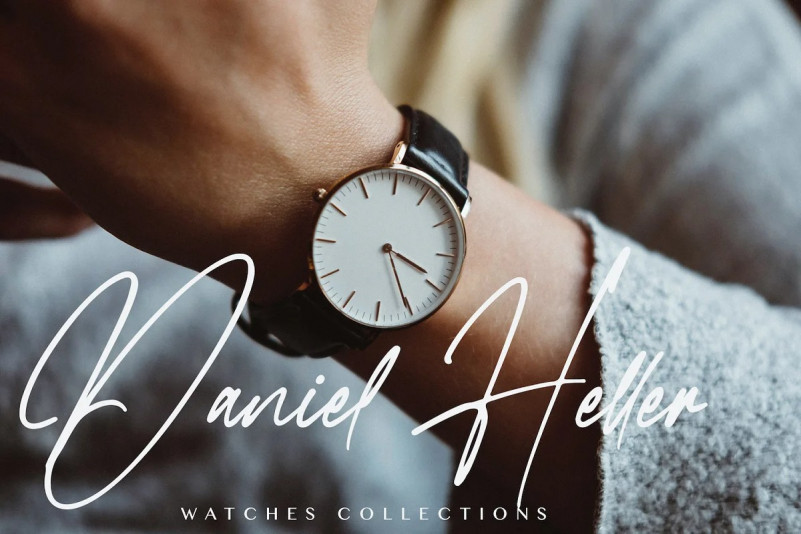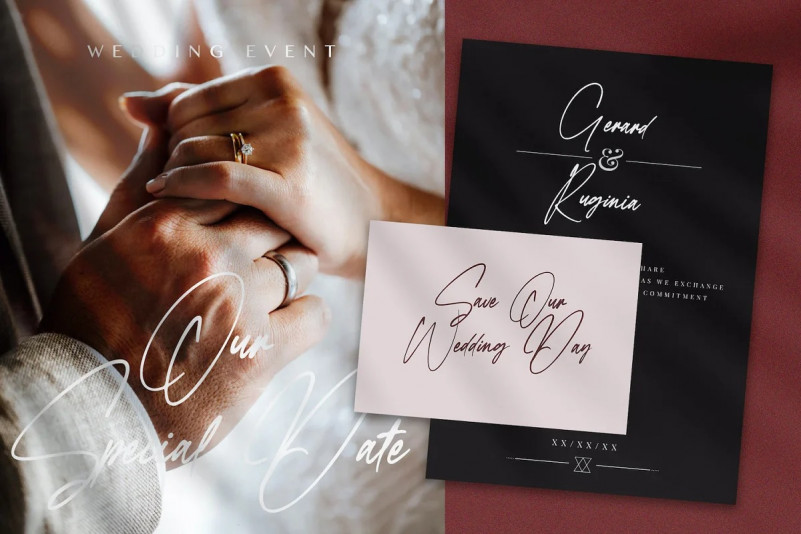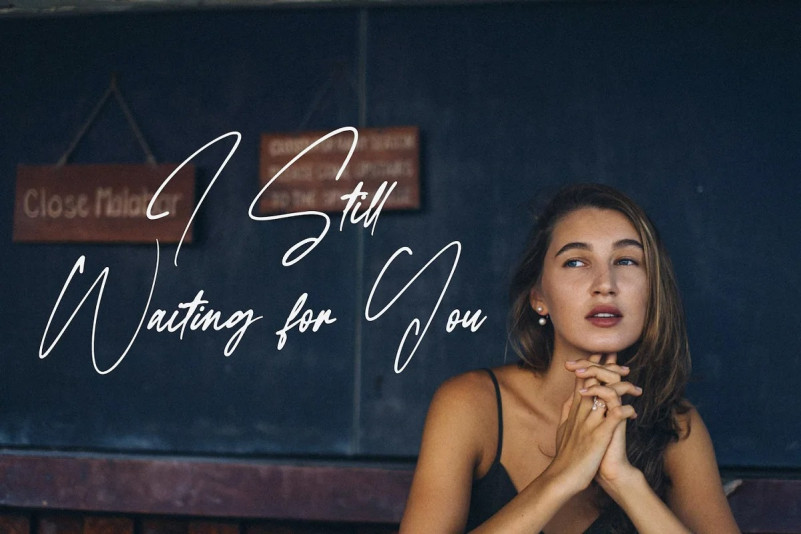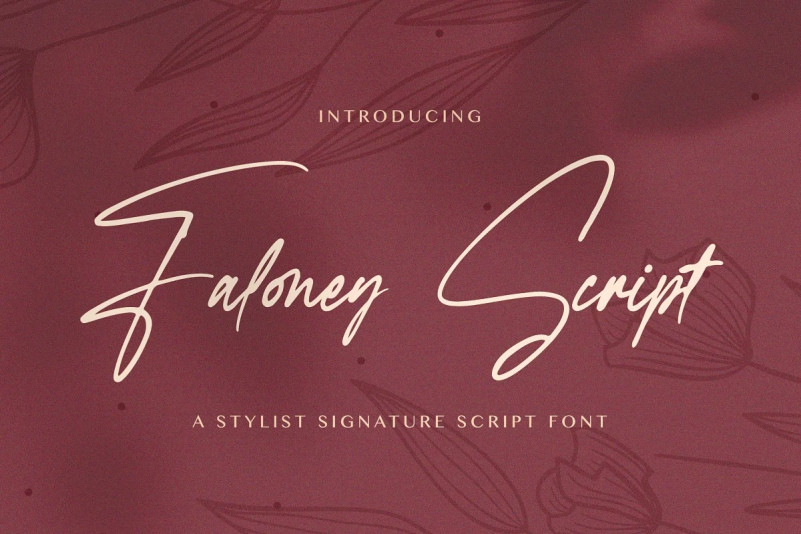
Faloney Script Font
This is a lovely and thin lettered script font, that emanates sophistication and elegance. It has beautiful and well balanced characters and as a result, it matches a wide pool of designs. Add it to your most creative ideas and notice how it makes them come alive!